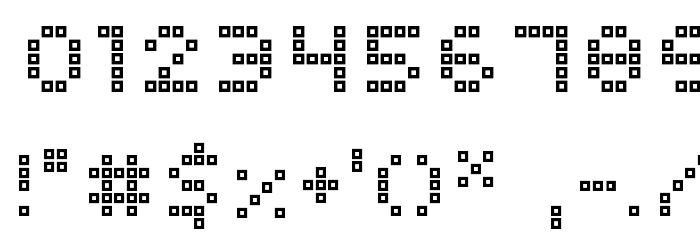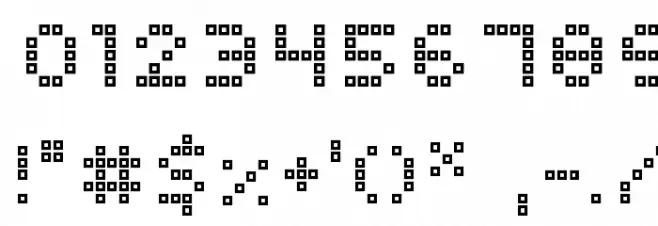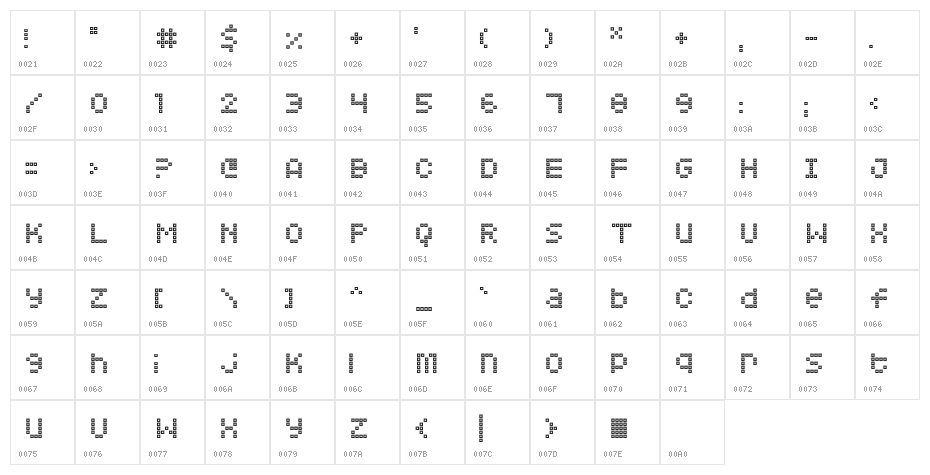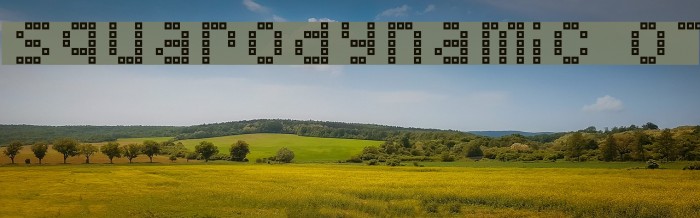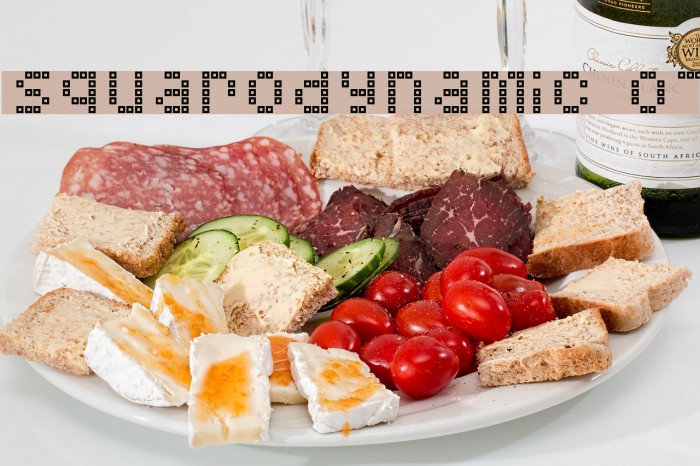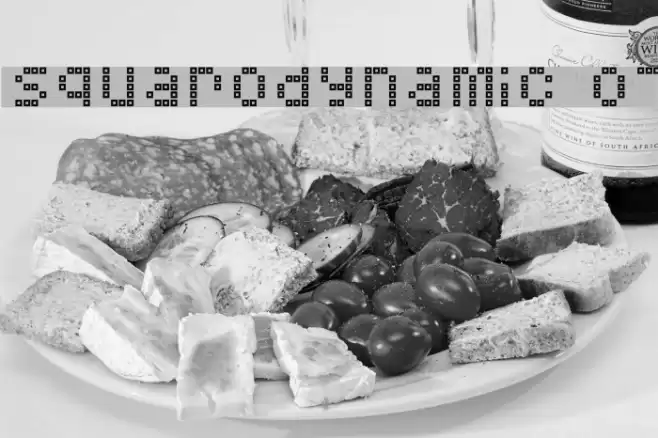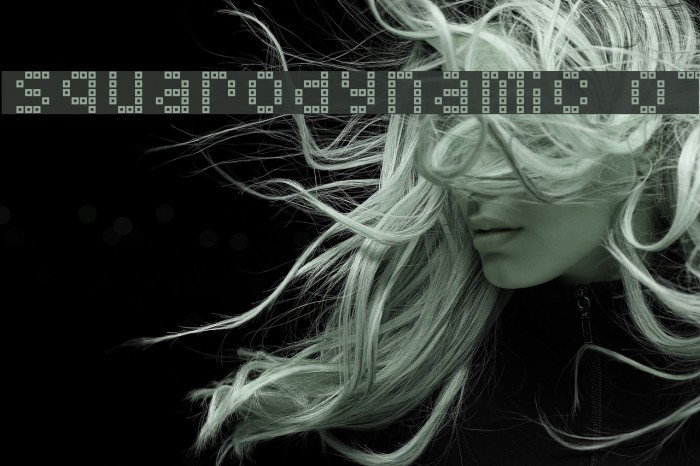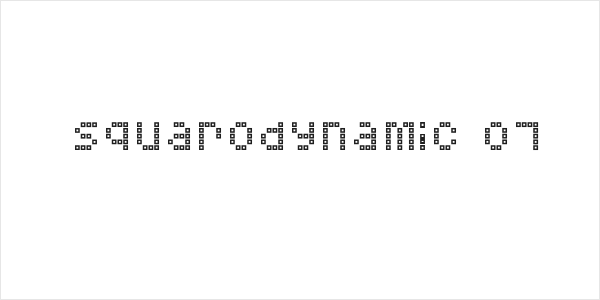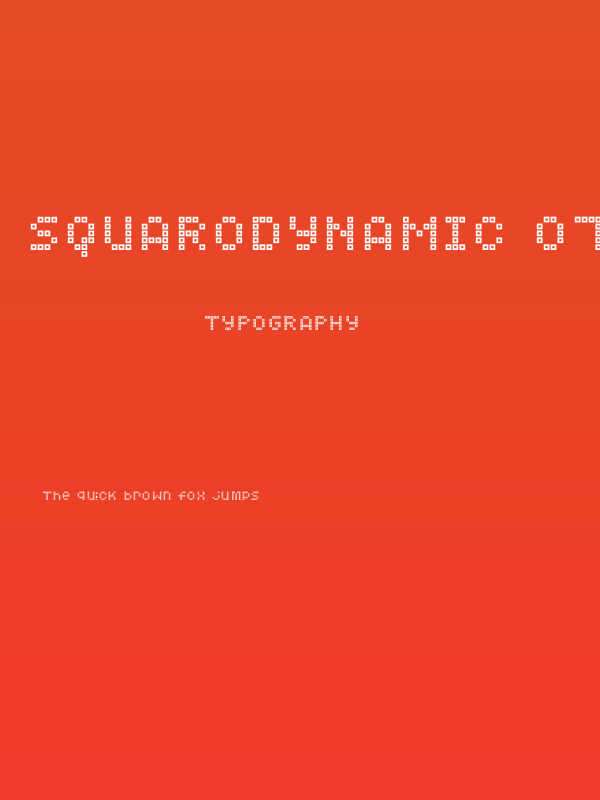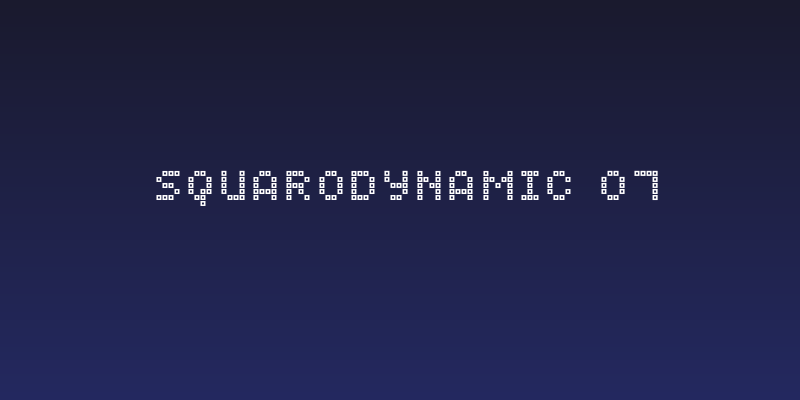
Squarodynamic 07 Font
Squarodynamic 07 Description
This font features a unique, geometric design composed of small squares forming each character. The style is distinctly digital and pixelated, reminiscent of early computer graphics or retro video game aesthetics. Each letter and number is constructed with a consistent grid-like pattern, giving it a uniform and structured appearance. The font maintains a modern and futuristic feel, suitable for projects that require a tech-savvy or digital theme. Its distinct blocky style makes it highly legible at various sizes, although it is best suited for larger displays where its intricate design can be fully appreciated.
Proposed ProjectsIdeal for digital art, video game design, tech-themed posters, and retro-style branding.